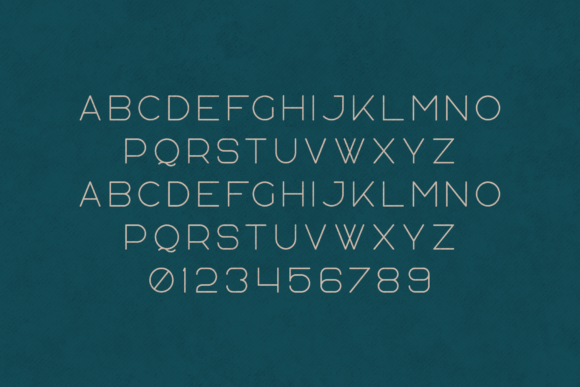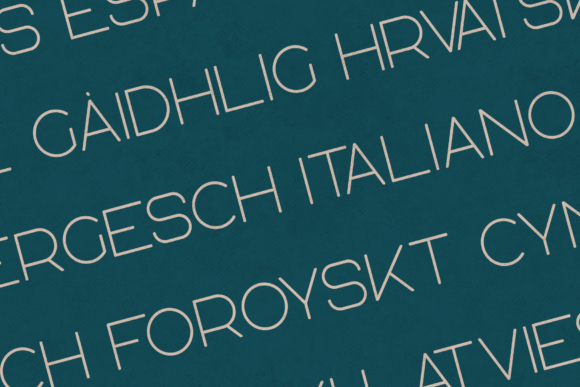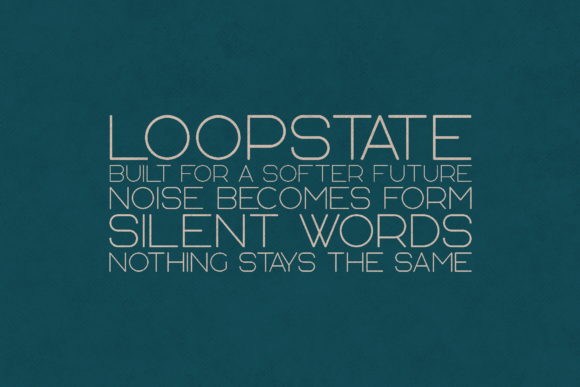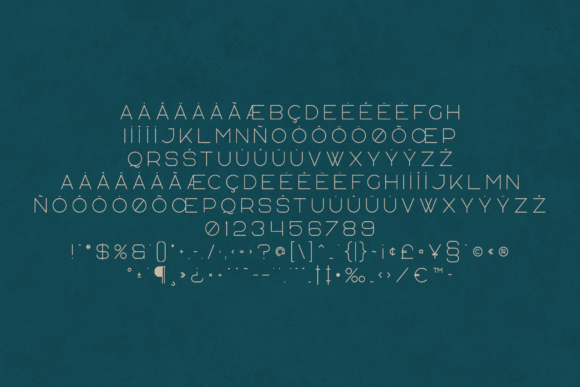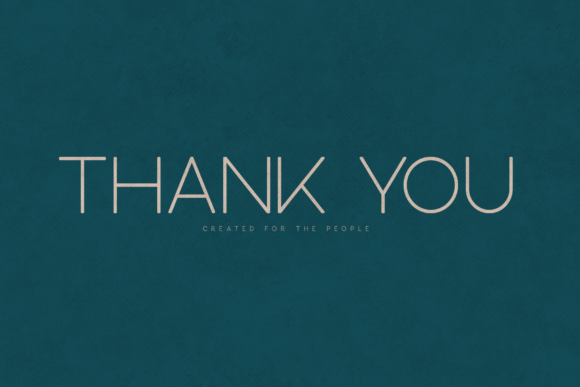
The Elusive Perfect Font: My Journey with Agelast Headline Edition
I’ll never forget the frustration of working on a high-end branding project, only to struggle finding the perfect font that exuded elegance and sophistication. My client wanted a design that felt “expensive,” and I knew just the right font could make all the difference. That’s when I stumbled upon Agelast Headline Edition, a refined minimal sans serif font that has since become a staple in my design toolkit.
An Honest Review of Agelast Headline Edition
• ✅ Thin strokes and balanced proportions create a calm, contemporary feel that’s perfect for headlines and branding.
• ✅ The font’s subtle geometry and generous spacing make it ideal for minimalist designs where precision and elegance matter.
• ✅ Agelast Headline Edition includes a full character set with extensive multilingual support, numerals, punctuation, and special symbols.
• ✅ Its lightweight yet confident presence feels modern and timeless, making it suitable for a wide range of applications.
• ⚠️ While Agelast Headline Edition is designed for headlines, it may not be the best choice for body text due to its thin strokes.
• ⚠️ Some users may find the font’s minimalist aesthetic too subtle for certain design applications.
The Designer Inspiration Behind Agelast
Agelast Headline Edition was crafted with the goal of creating a font that embodies the perfect balance of elegance and minimalism. The designer’s inspiration came from the world of high-end fashion and luxury branding, where simplicity and sophistication are key. By combining thin strokes, balanced proportions, and a calm contemporary feel, Agelast Headline Edition was born – a font that’s both modern and timeless.
What is Agelast Headline Edition best suited for? Agelast Headline Edition is ideal for headlines, branding, editorial layouts, posters, websites, UI concepts, and sophisticated visual identities.
Is Agelast Headline Edition suitable for body text? While Agelast Headline Edition can be used for body text, its thin strokes may not be the best choice for extended reading. It’s recommended for headlines and titles.
Does Agelast Headline Edition support multilingual text? Yes, Agelast Headline Edition includes extensive multilingual support, making it suitable for a wide range of languages.